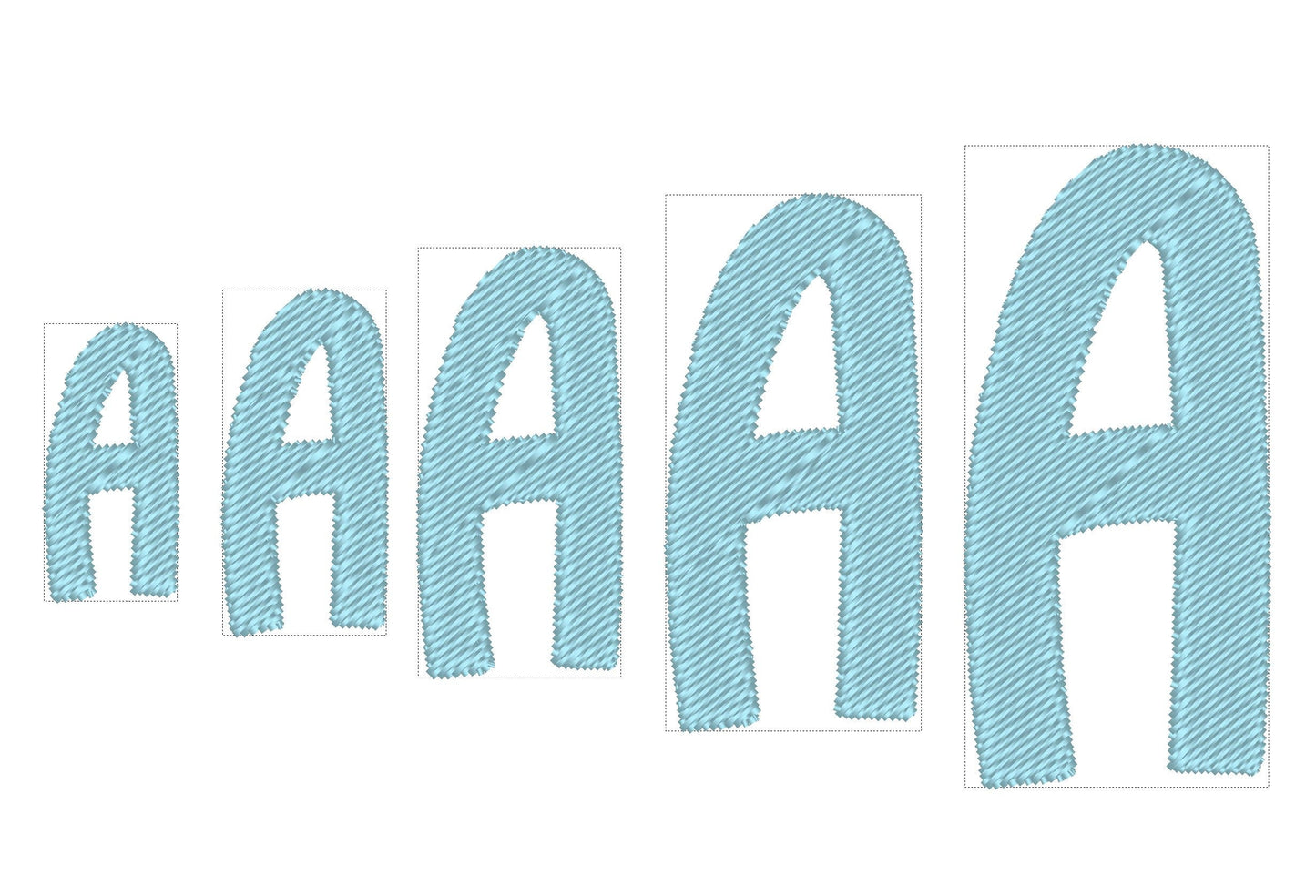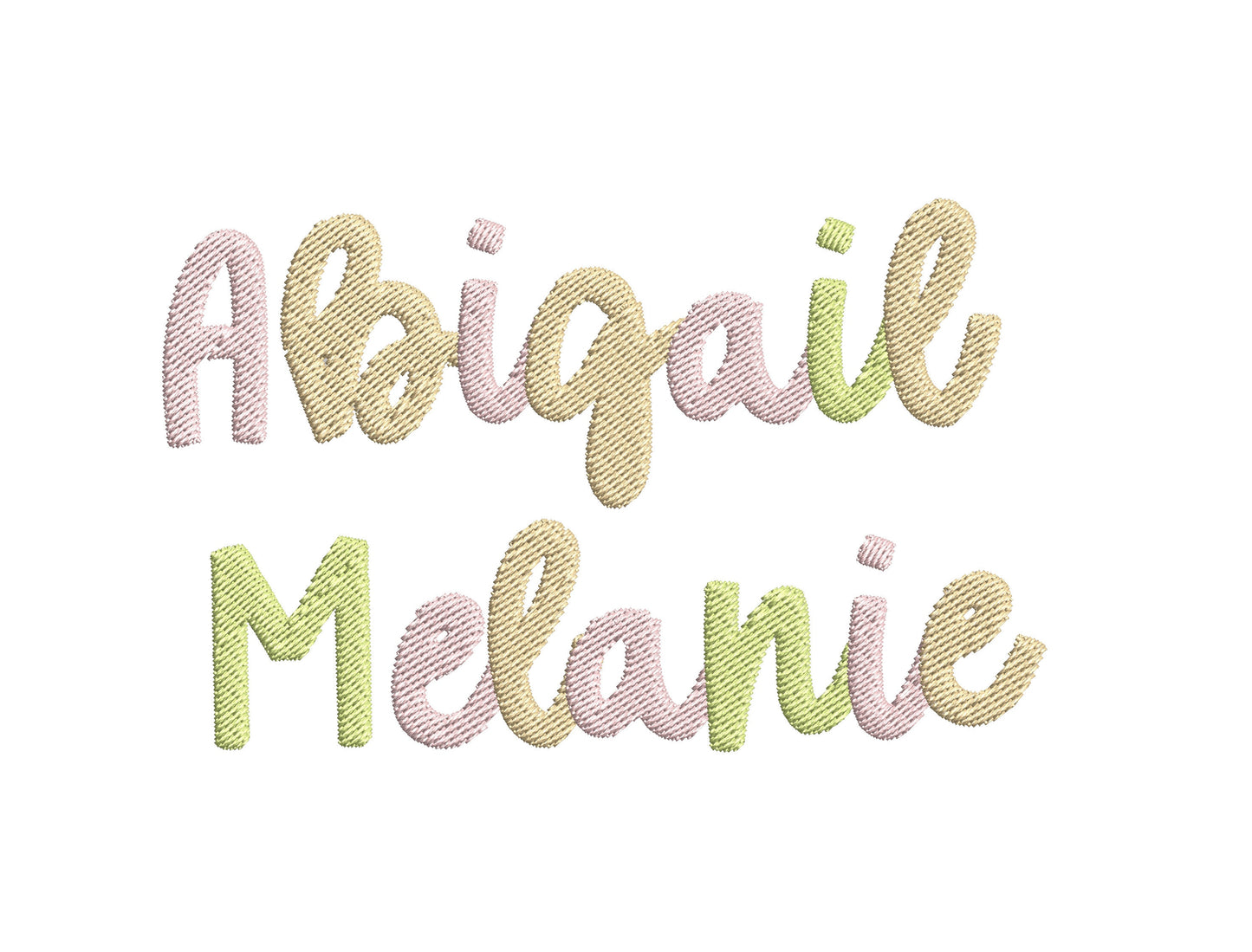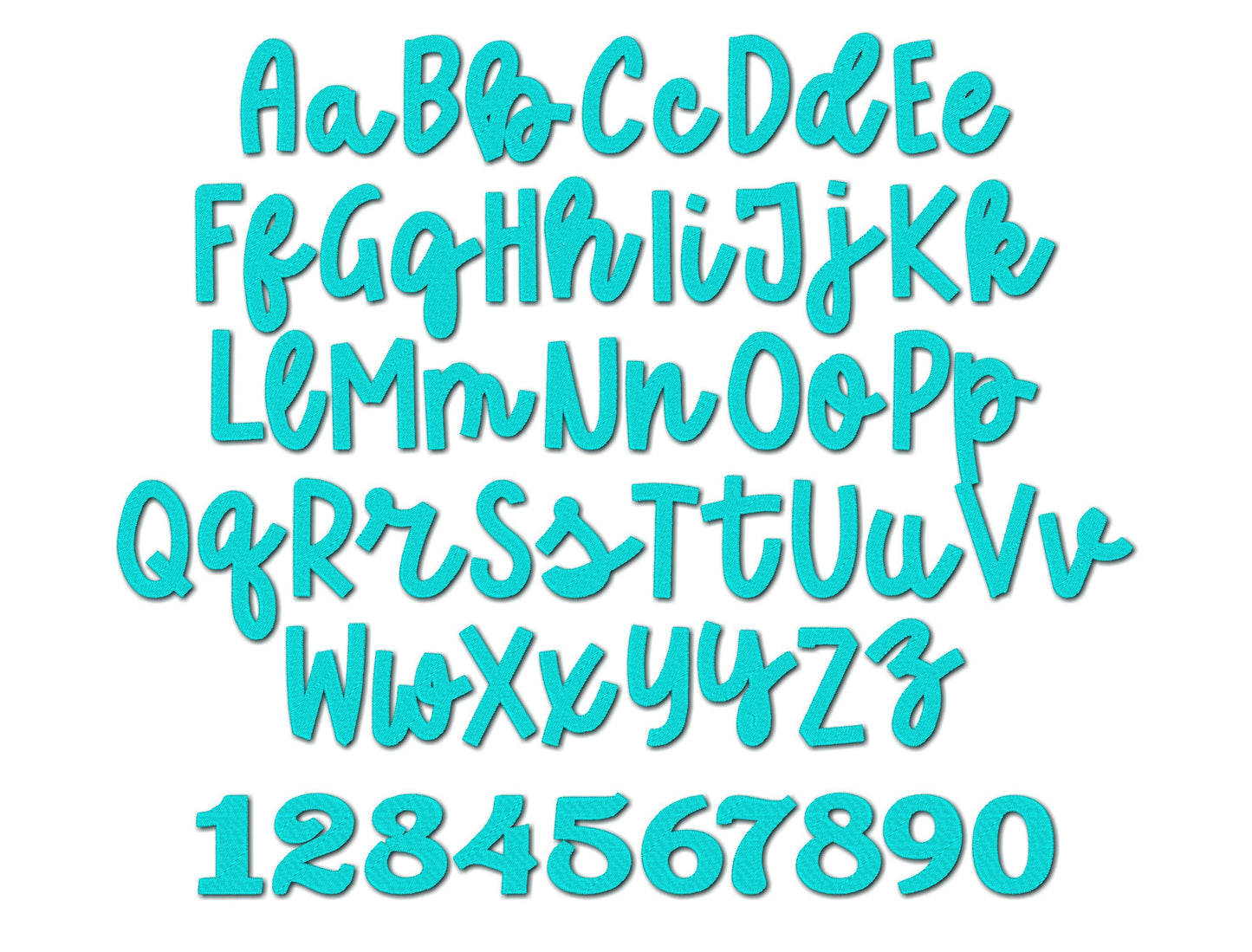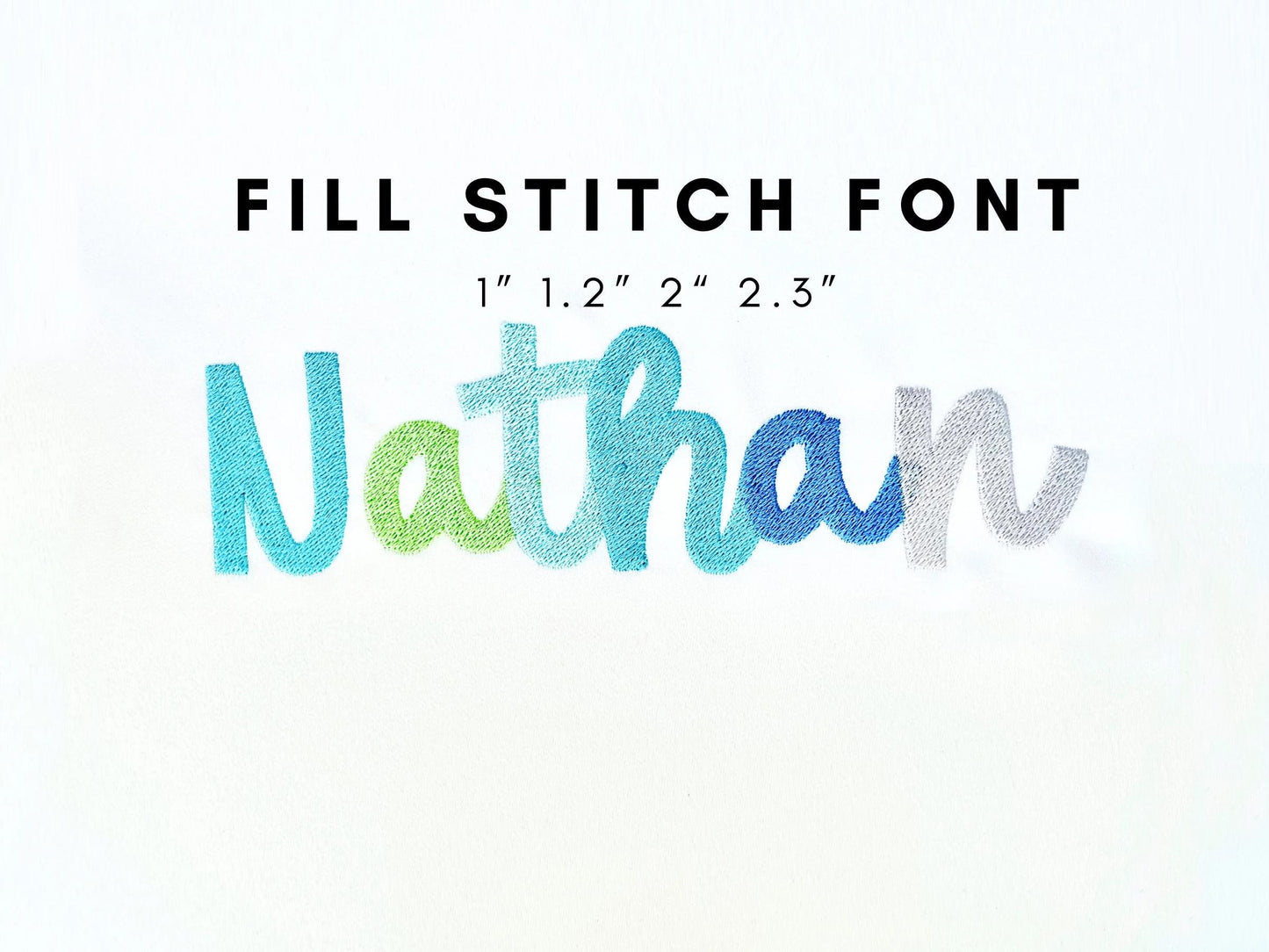
Love using this font! It's so fun and stitches beautifully!
Muy bonito y bordado sin problemas
Design stitched beautifully as all of her designs do.
Plenty of coverage in the stitches.
I love this font so much!!! I was able to create these designs for some back packs I will make for my granddaughters.
This font is exactly what I was looking for. It stitched out great!
Can't wait to stitch this out. I have had a lot of request for a thicker cursive font.
If using different colors, make sure the darker colors are on top! I love the font but don’t love how much you have to think about color order.
Beautiful font. I haven't had a chance to stitch it out yet.
Very cute font for kids shirts!
Super cute font can’t wait to use it.
This stitched out so well! Love the font, thank you ♥️
Absolutely love this font stitched great and everyone has loved it on our school spirit gear
I made sweatshirts for two friends. This design stitched out perfectly, and two teachers loved them!
This is a lovely design
This turned out great. Highly recommend
I bought this and used it immediately. Looks so good. I used the 2.3 all lowercase.
Sews out great! Would highly recommend. Great font.
Thank you. Stitched out great and sooo cute!
Stitched out perfect! So cute
le graphisme de cet alphabet est superbe. la broderie se fait très bien. les lettres brodées sont lumineuses.
Made sweat shirts were great
The stitching looks nothing like what is advertised
STITCHED OUT GREAT! LOVE IT!